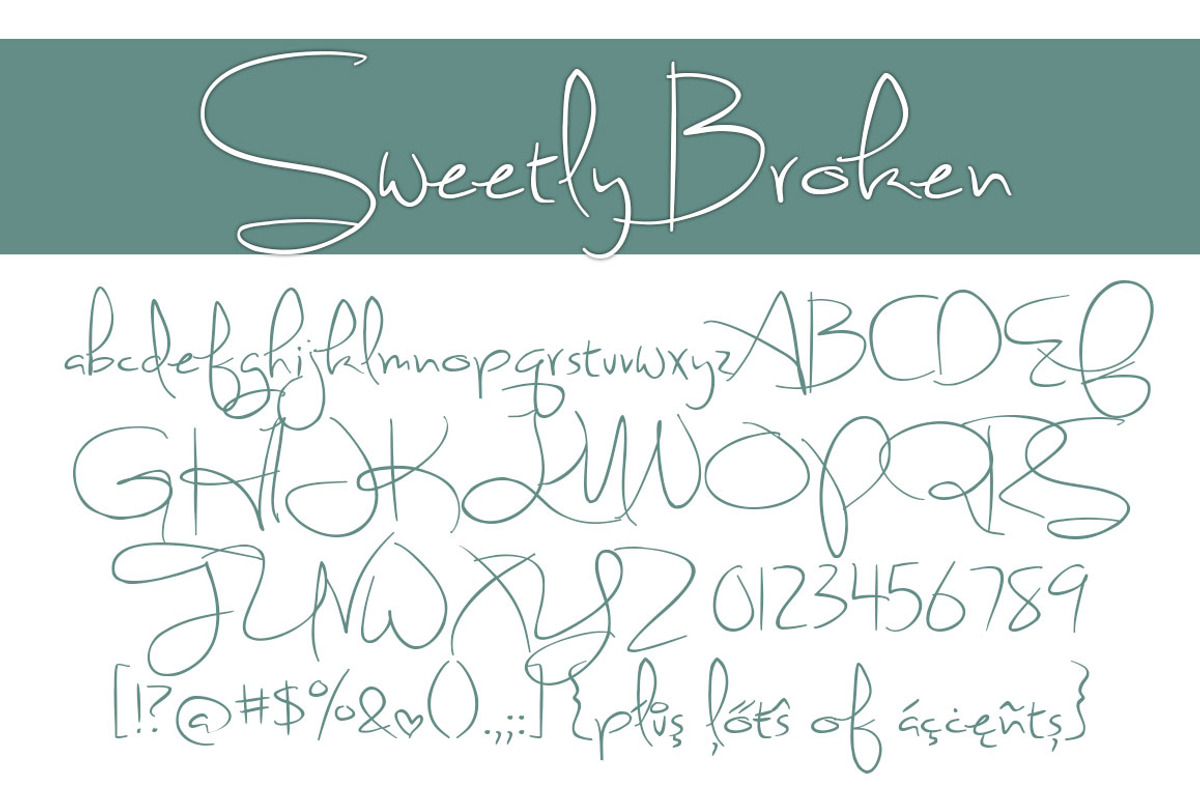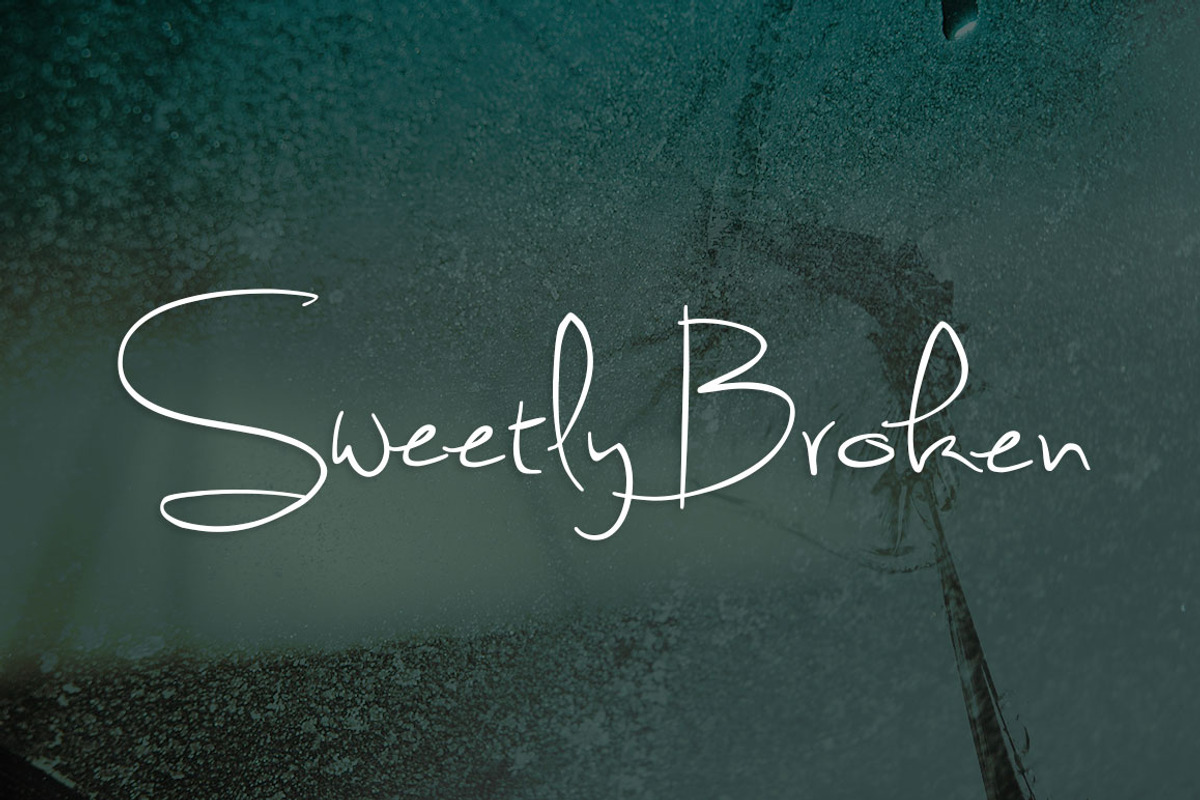
Sweetly Broken
Sweetly Broken is a thin feminine script with a short x-height and dramatic, sweeping curves. Great for headlines, bylines, logos, and signatures.